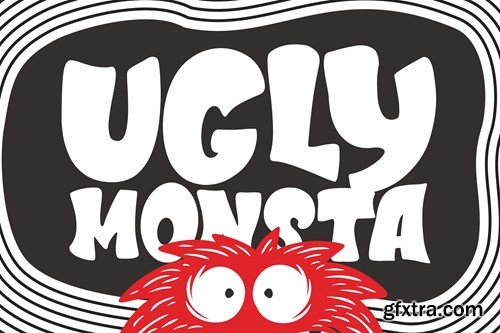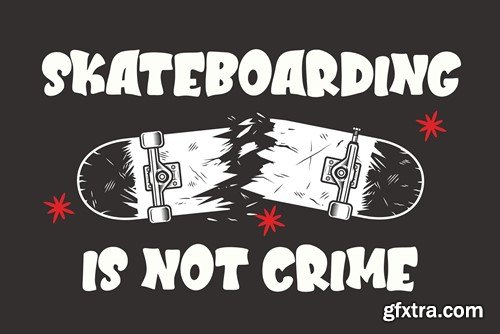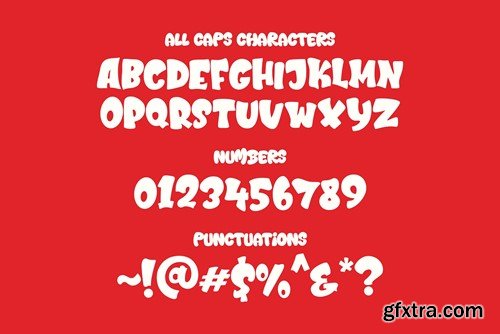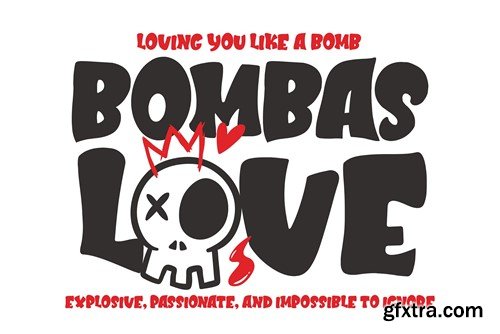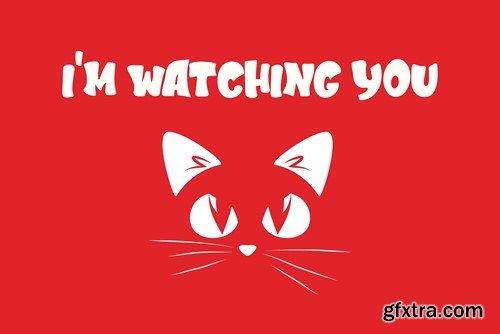
丑娘 - 勇猛卡通字体LC2UWQQ
Unleash the playful beast within your designs with Ugly Monsta, the bold cartoon font that injects a dose of animated charisma into every project. More than just a font, Ugly Monsta is a visual symphony of boldness and whimsy, where each letter transforms into a lively character ready to captivate your audience. Crafted with vibrant precision, every stroke in Ugly Monsta embodies the spirit of animated fun, making it perfect for a myriad of creative projects. Whether you're designing for children's books, posters, or any venture that craves a touch of bold, cartoon charm, this font ensures your words become a delightful spectacle. Ugly Monsta isn't just a font; it's a design companion that turns your creations into a whimsical playground of lively expression. Elevate your designs with the lively and charismatic allure of Ugly Monsta – because sometimes, a touch of cartoonish boldness is all you need to stand out! File Included: Features: That's it! If you have any questions don't hesitate to ask! Stay Classy!